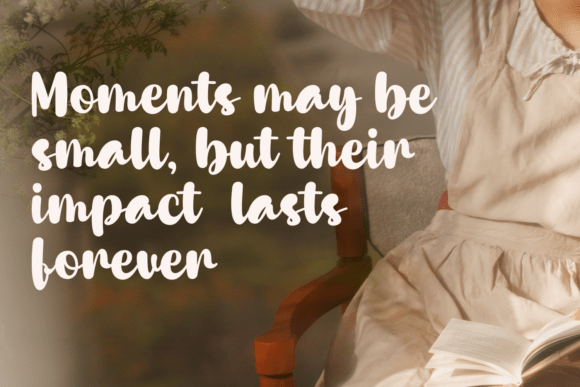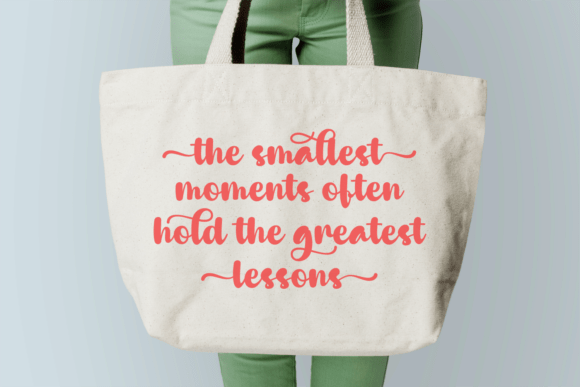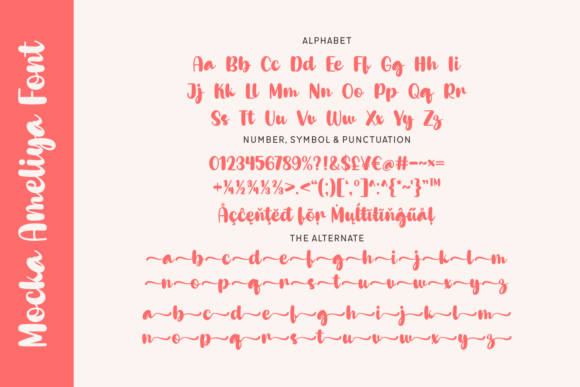
Introduction to Mocka Ameliya Font
Mocka Ameliya is a fun and bouncy script font with a bold, friendly character.
Its rounded strokes, lively swashes, and playful flow make it a perfect fit for childrenโ€™s designs, social media graphics, cheerful branding, and handmade product packaging With a cute and confident presence, Mocka Ameliya brings energy and joy to any creative project.
Key Features of Mocka Ameliya Font